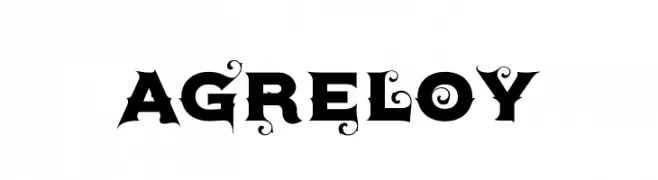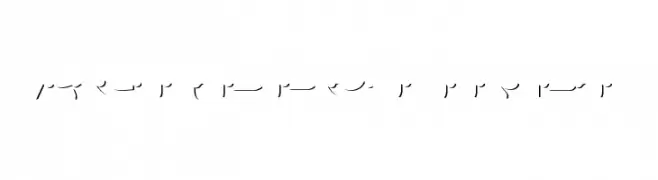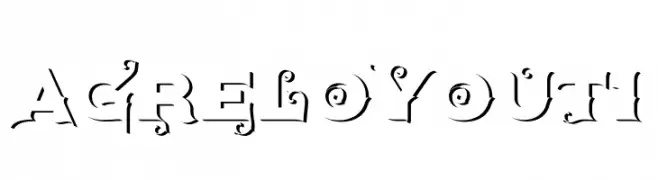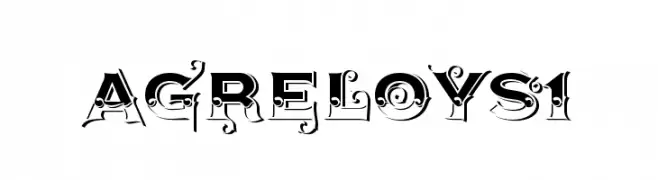
A bold, decorative font with intricate flourishes and high contrast.
A decorative and whimsical font with intricate swirls and curls.
A bold, decorative font with intricate swirls and vintage flair.
An abstract, artistic font with thin, fluid strokes and a modern, decorative style.